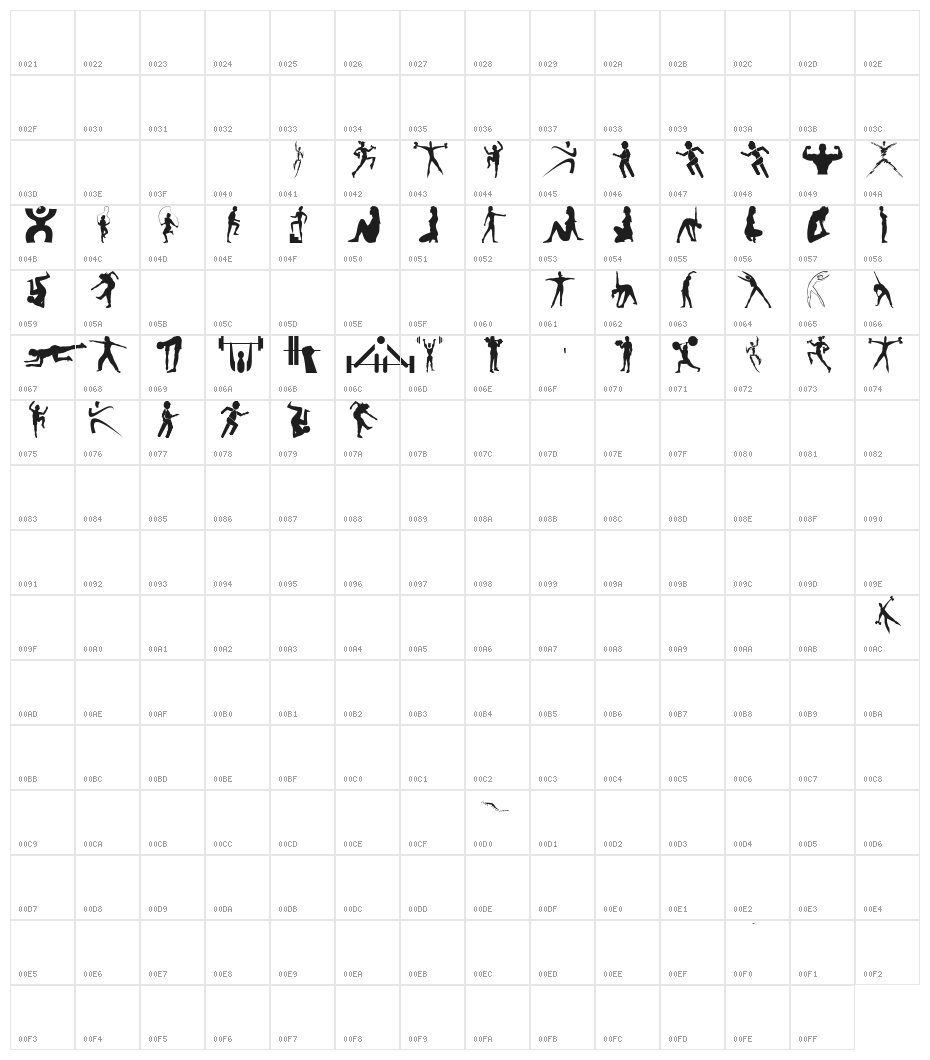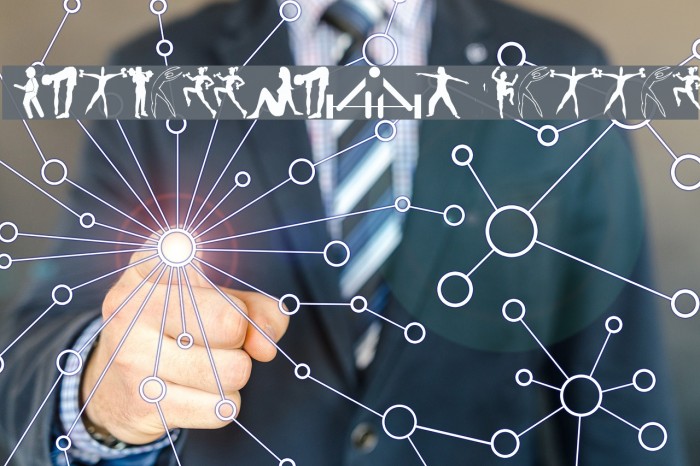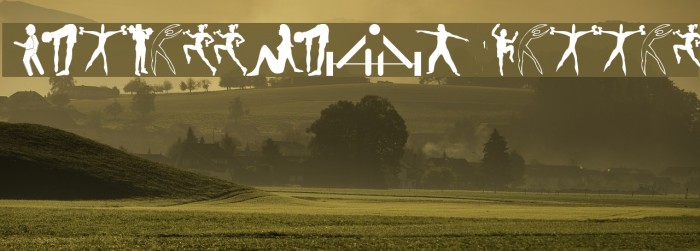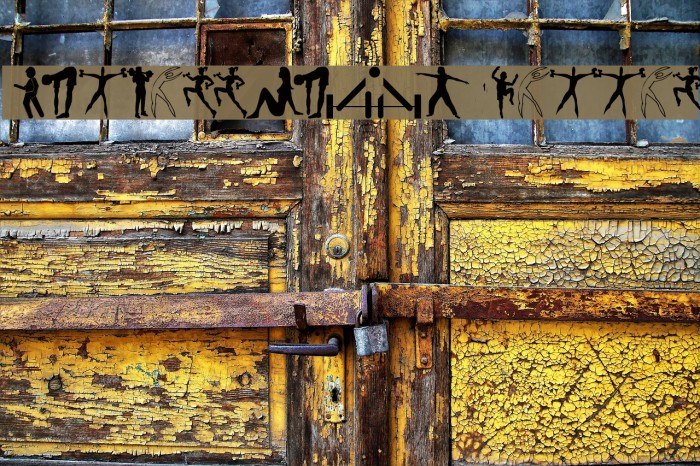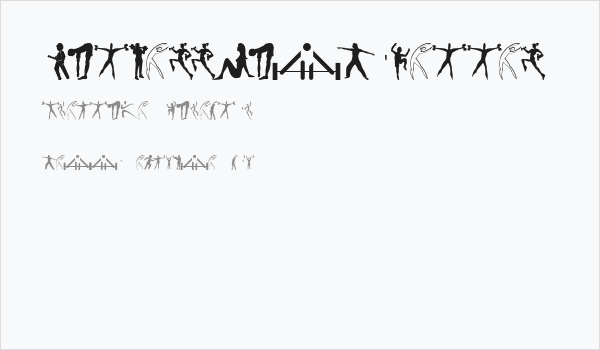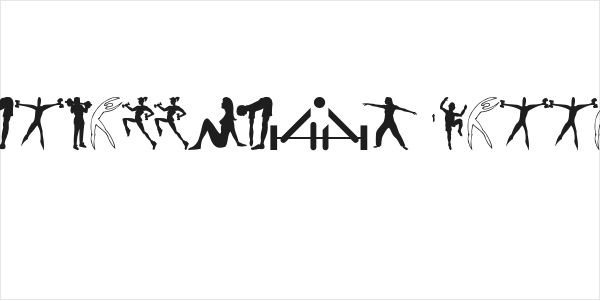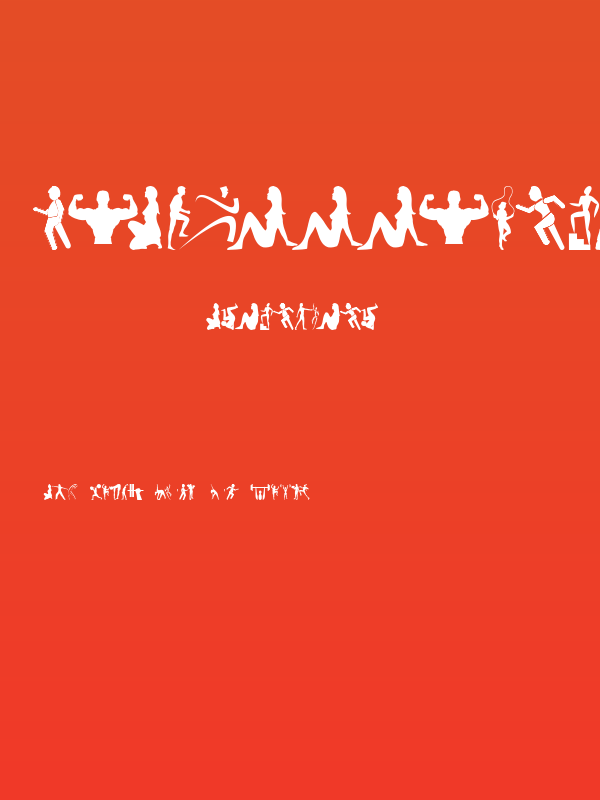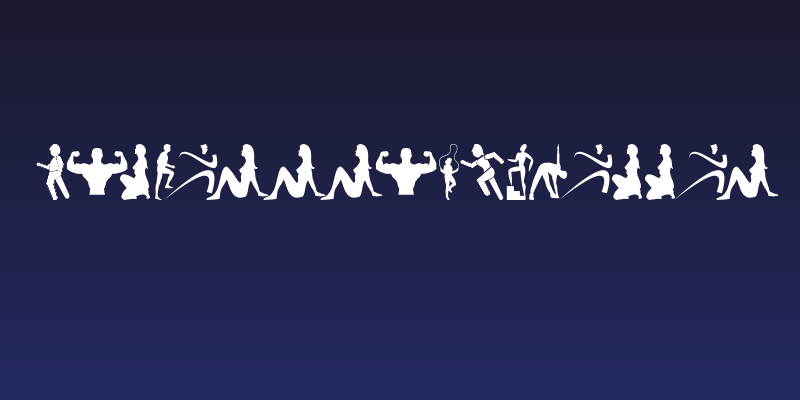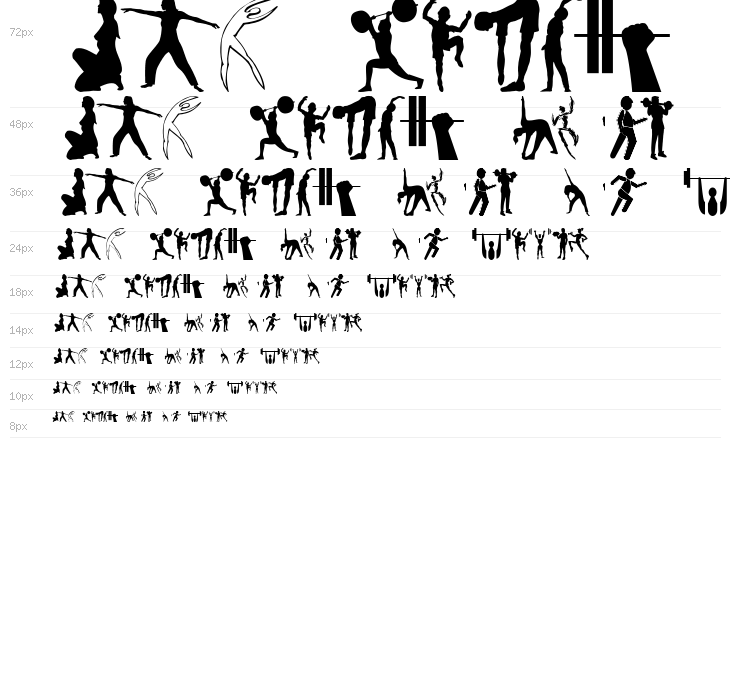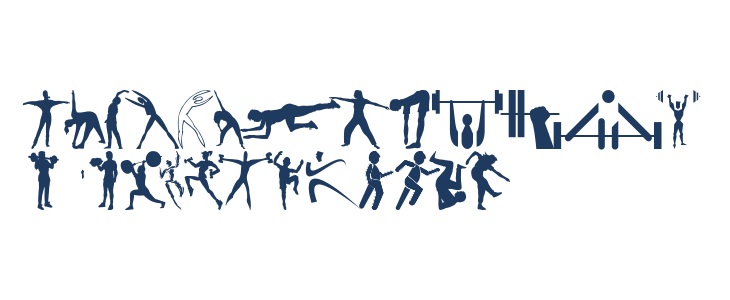
FitnessSilhouettes Font
FitnessSilhouettes Description
A collection of bold, high-contrast silhouette glyphs depicting various athletic and fitness poses, with figures in dynamic stances and a playful, energetic style. The characters are composed of solid black shapes, emphasizing movement and action rather than typographic legibility.
| Overall Style | Decorative, Energetic, Playful |
| Use Case | Logos, Posters, Themed graphics, Event promotions |
| Proposed Projects | Sports branding, fitness posters, gym signage, event flyers, activity-based infographics. |